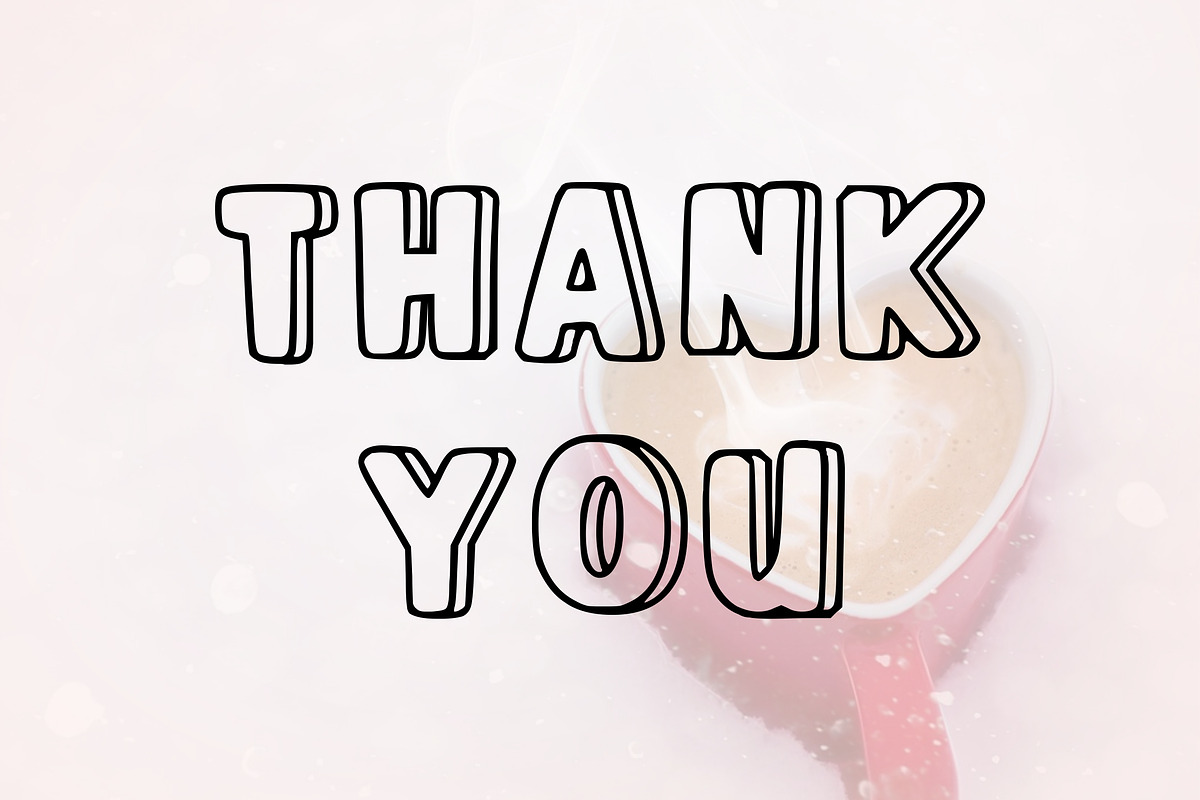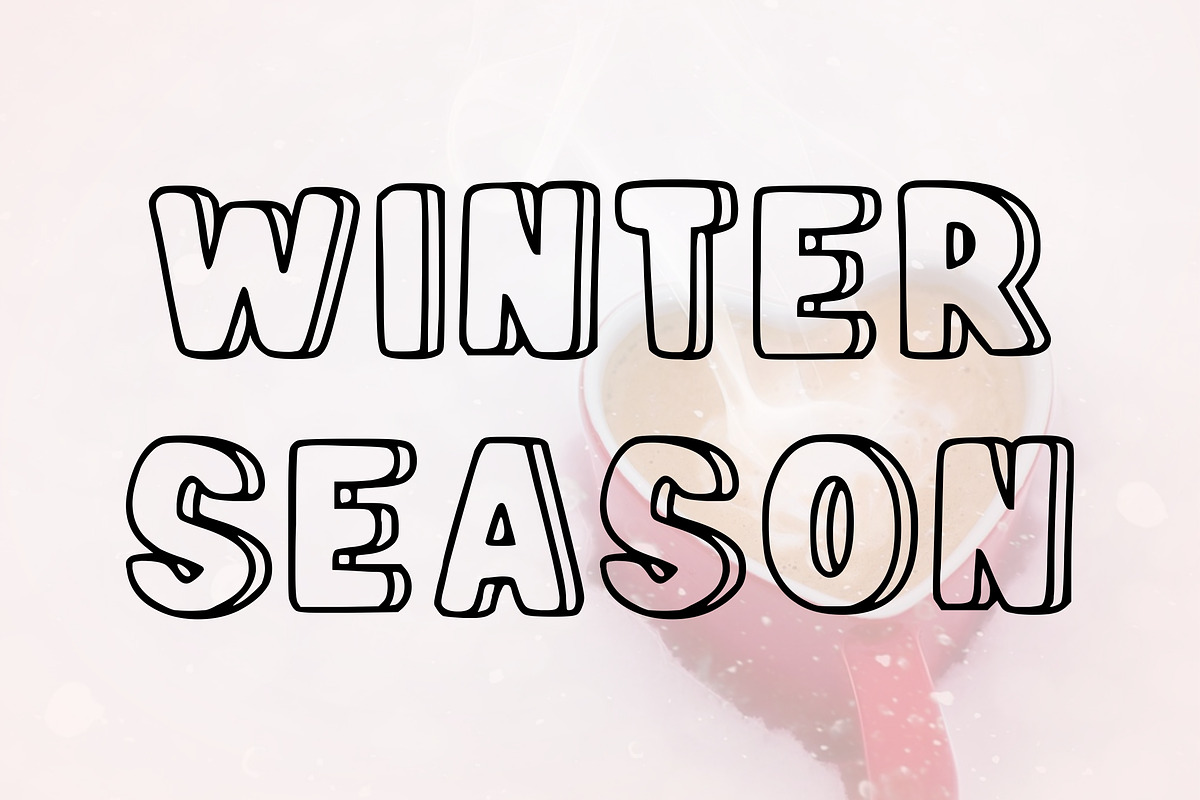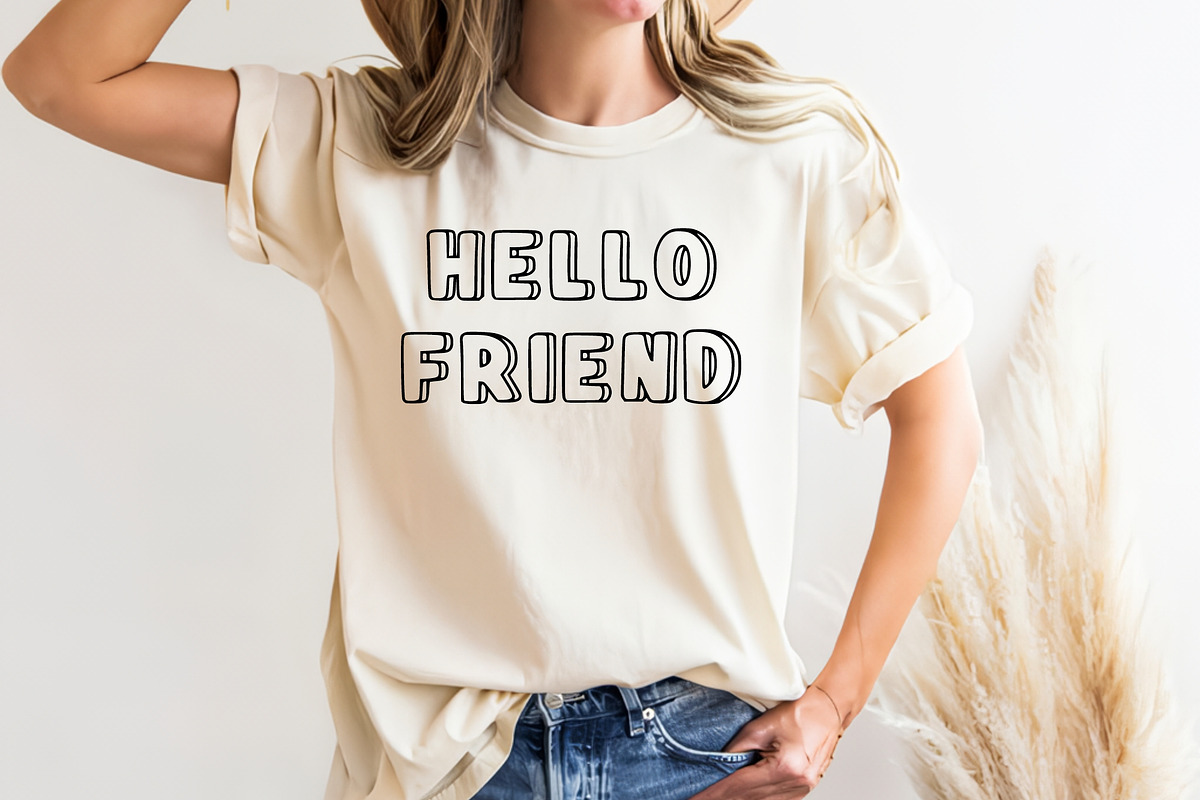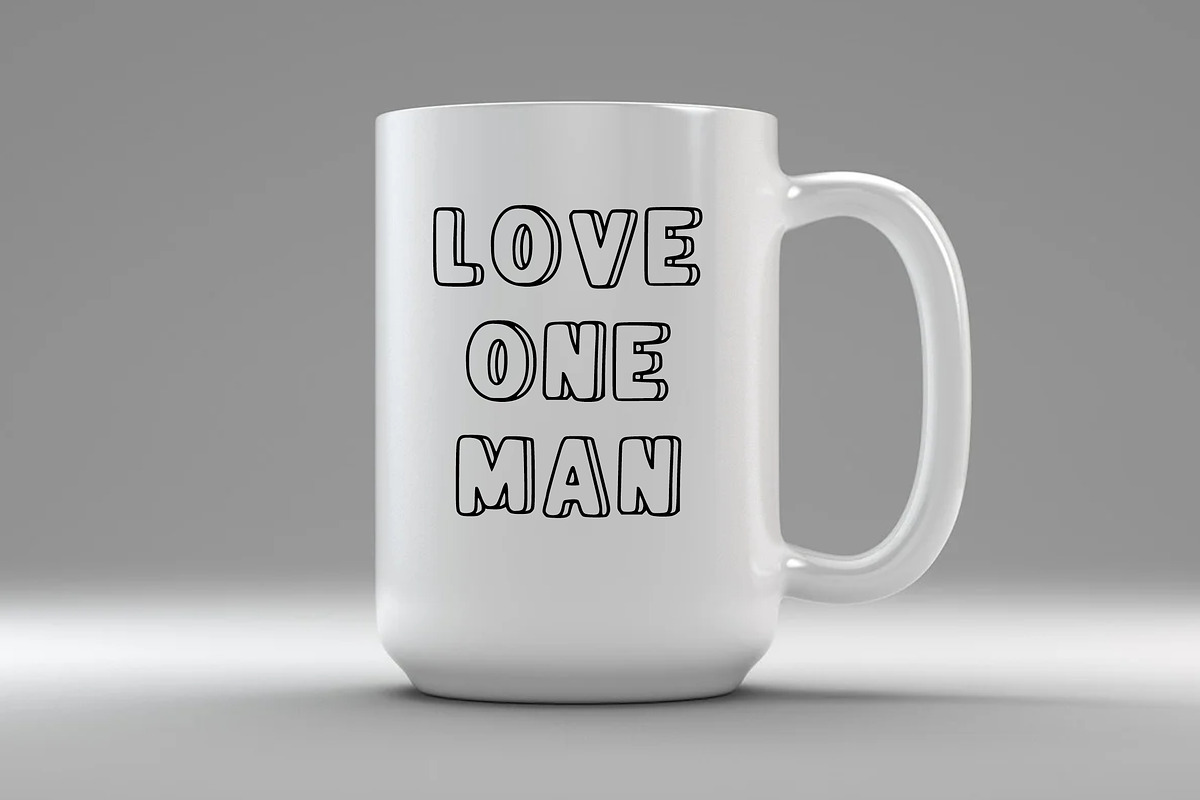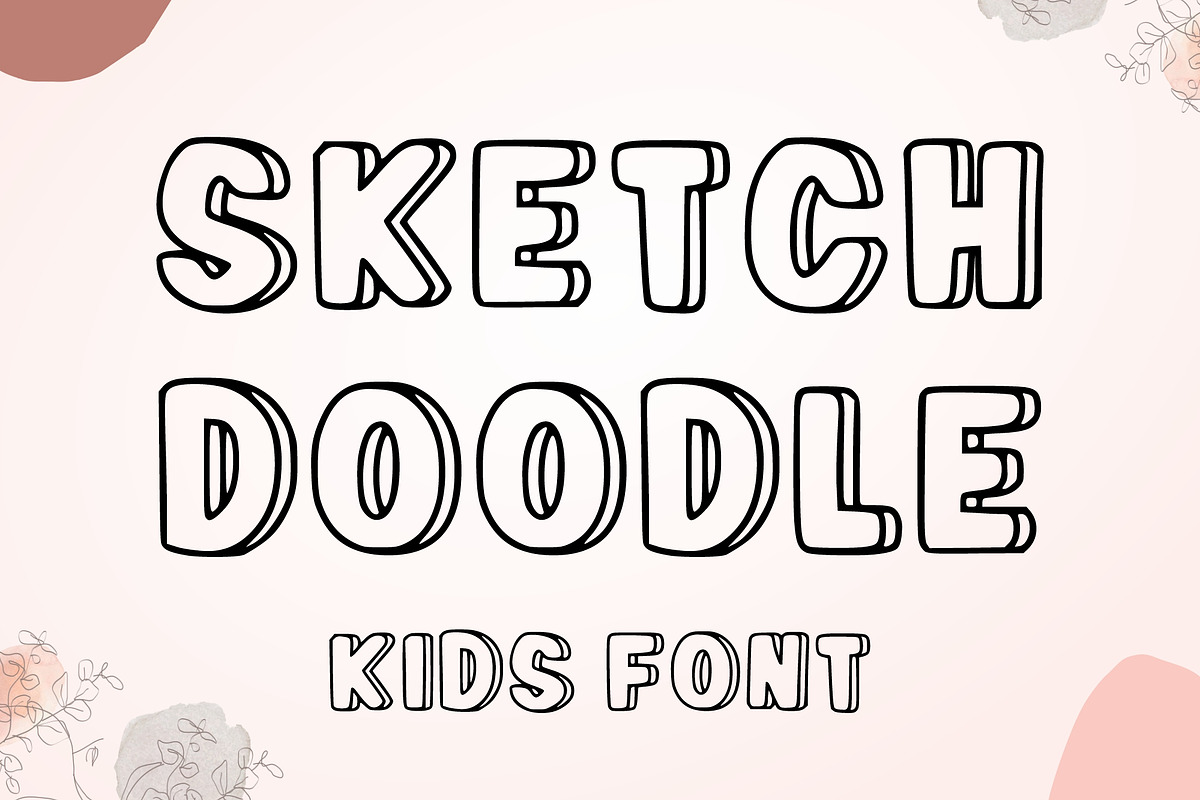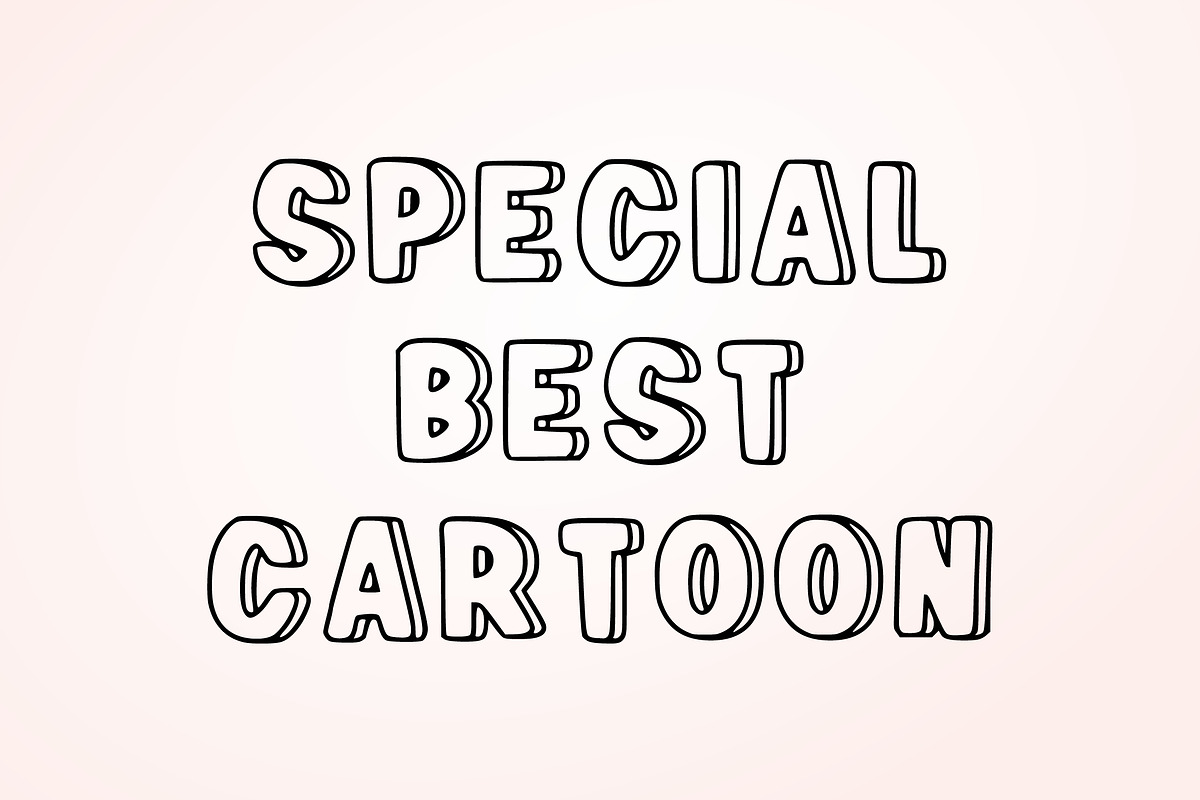
Sketch Doodle
The Sketch Doodle font is a playful, hand-drawn typeface designed with a whimsical and approachable look. Each letter features a bold, rounded structure with sketch-style outlines, giving the appearance of being doodled or outlined with a marker. The subtle imperfections in the stroke thickness and contouring emphasize a handmade, casual aesthetic. Its 3D-like contour effect adds depth, making the letters stand out in a fun and engaging way.